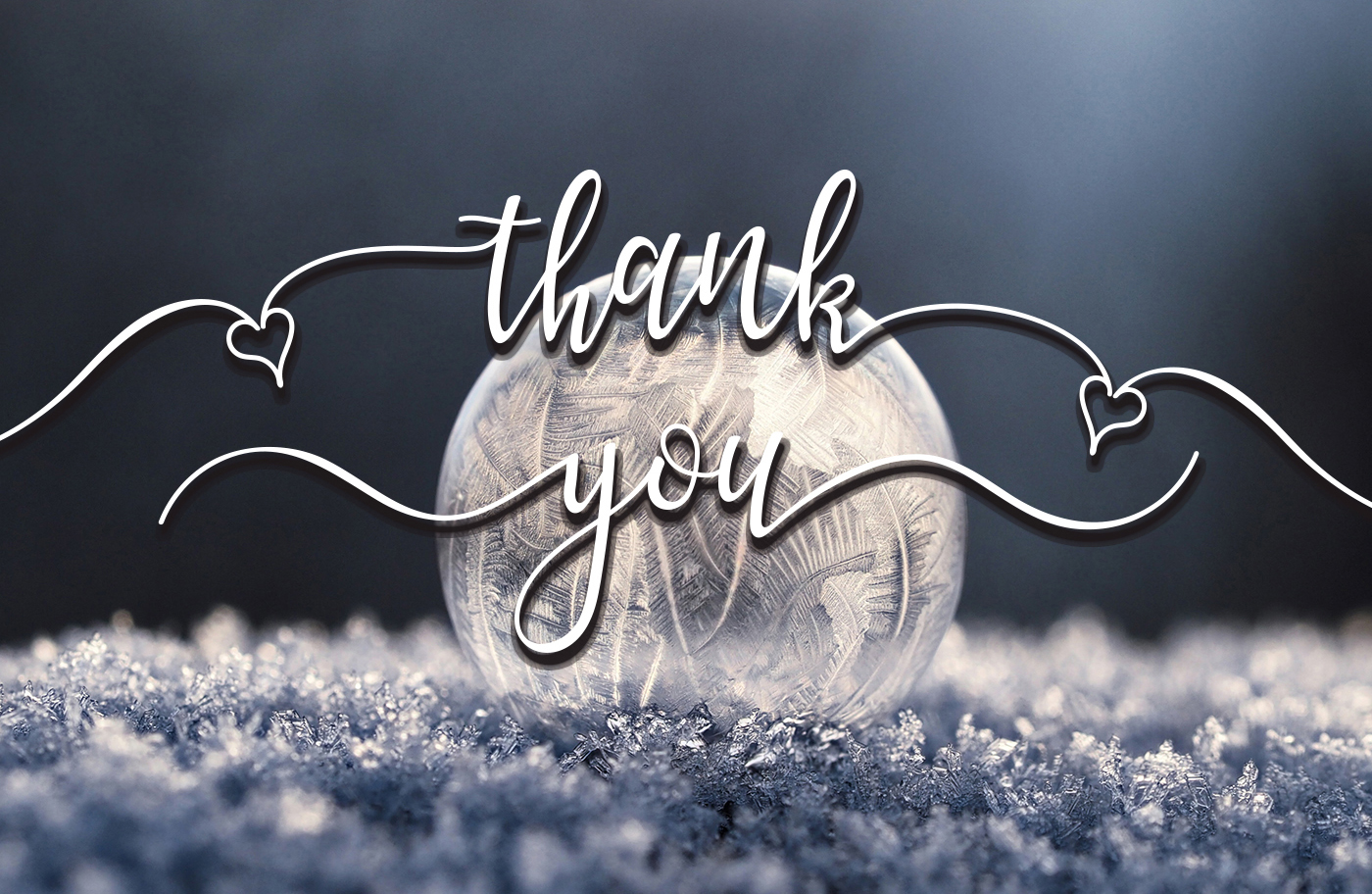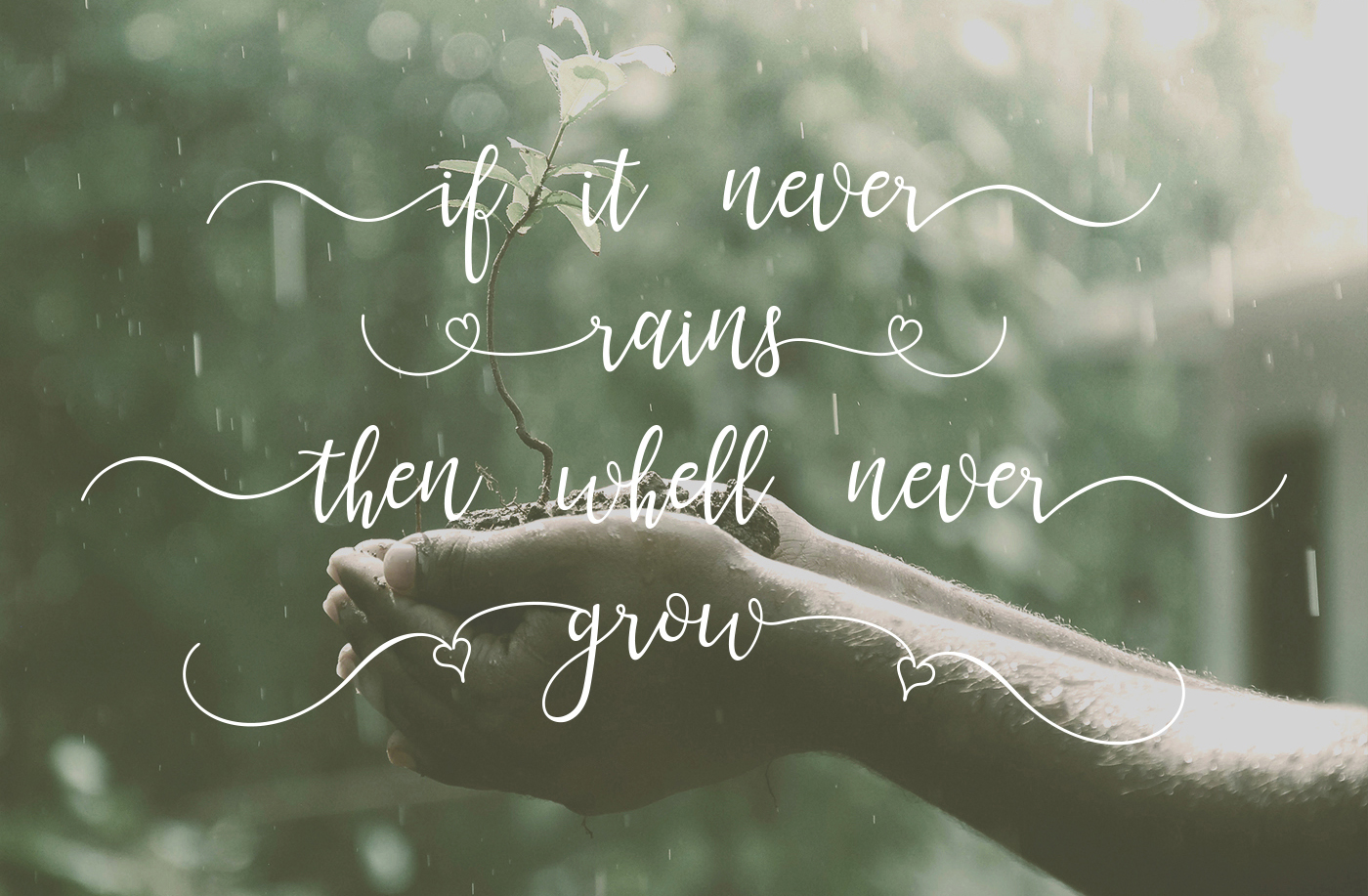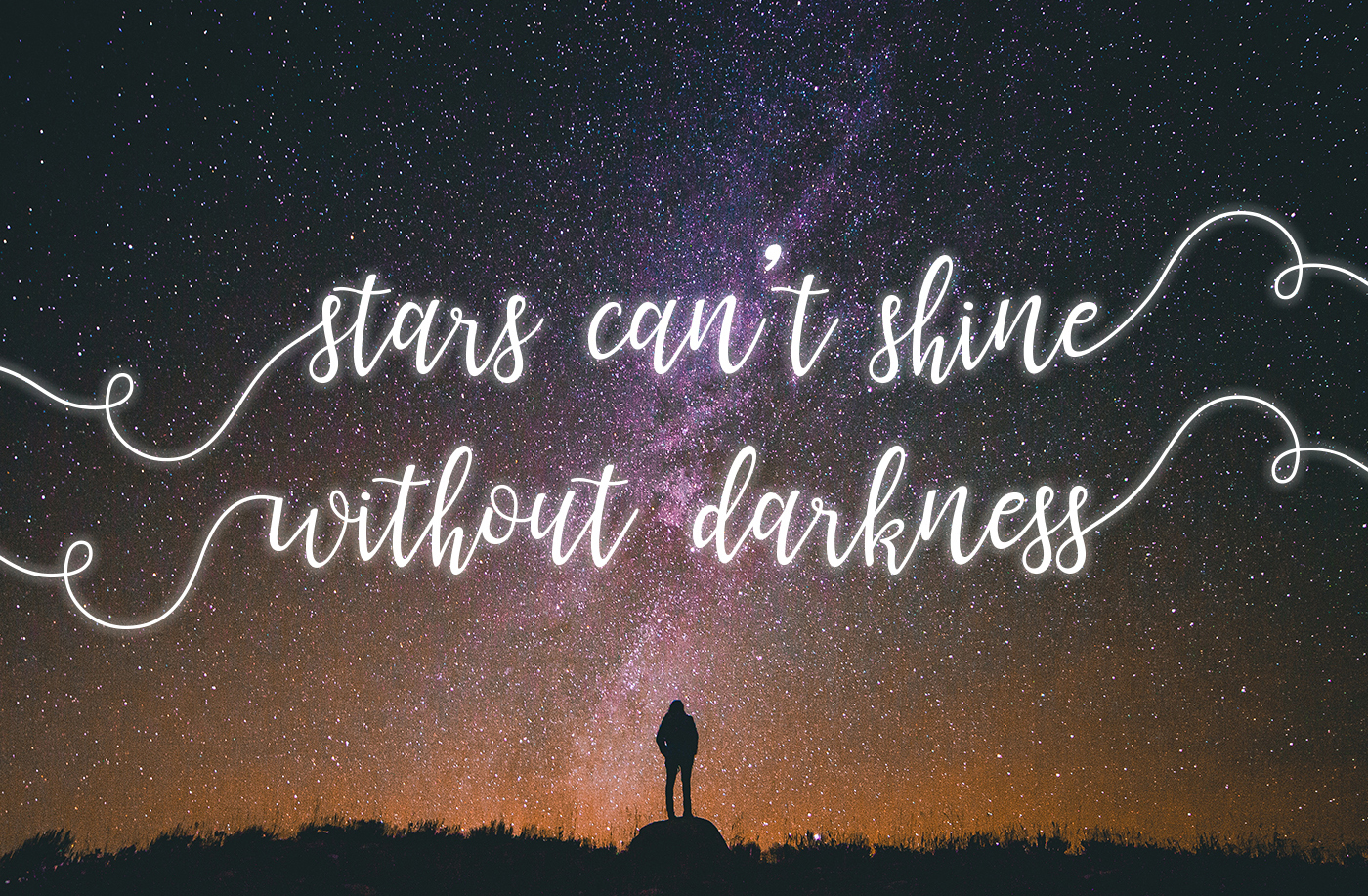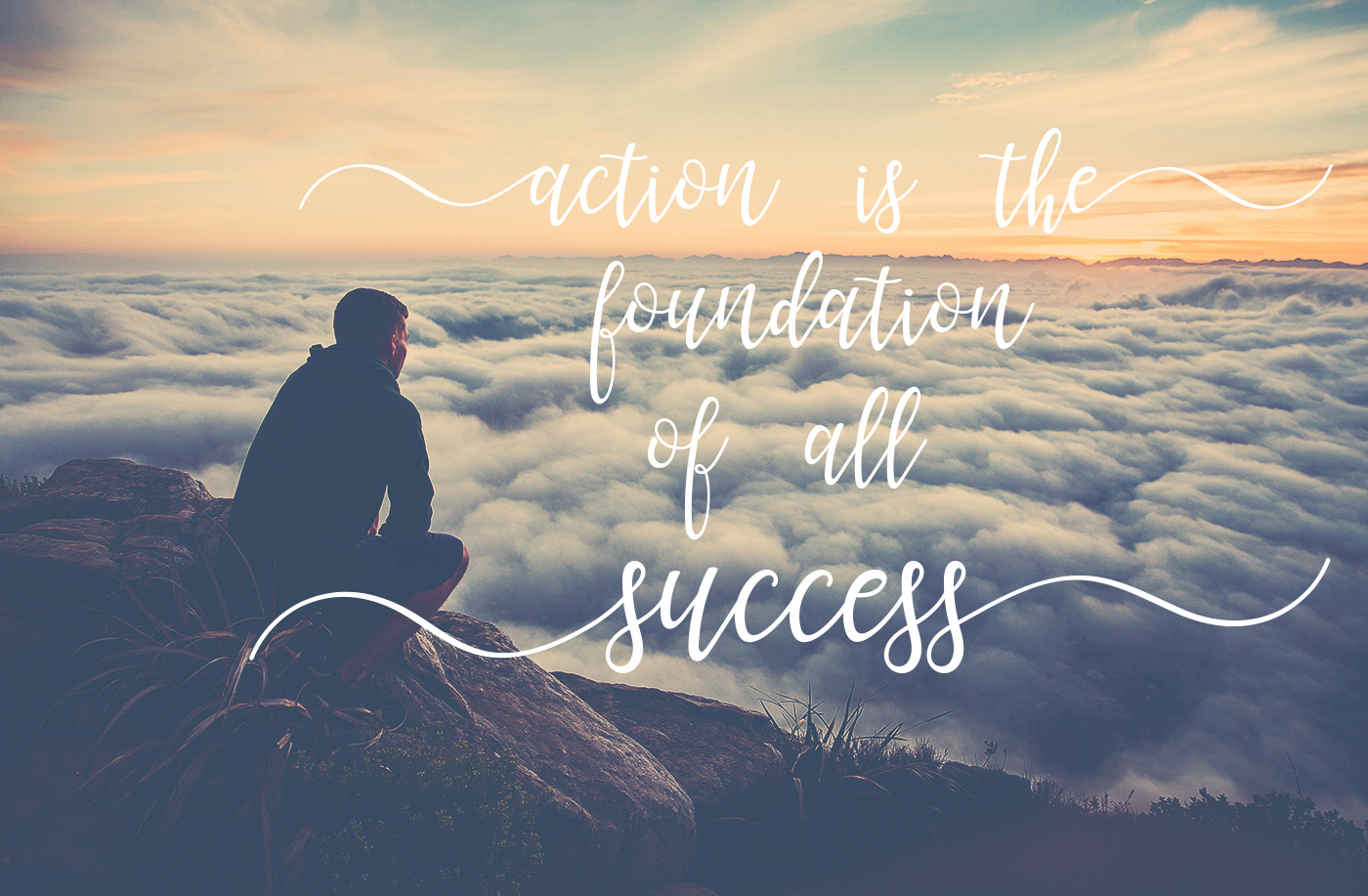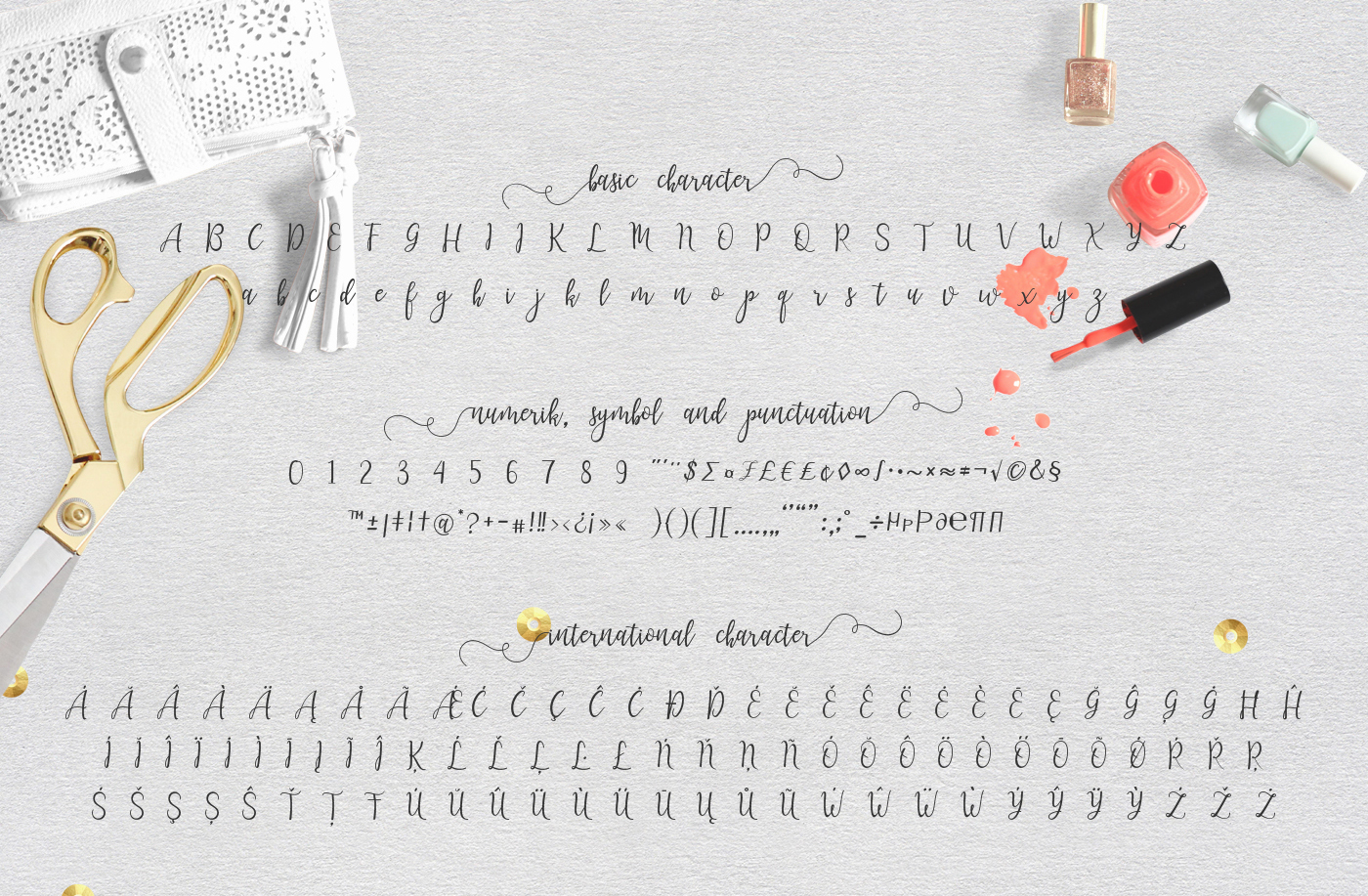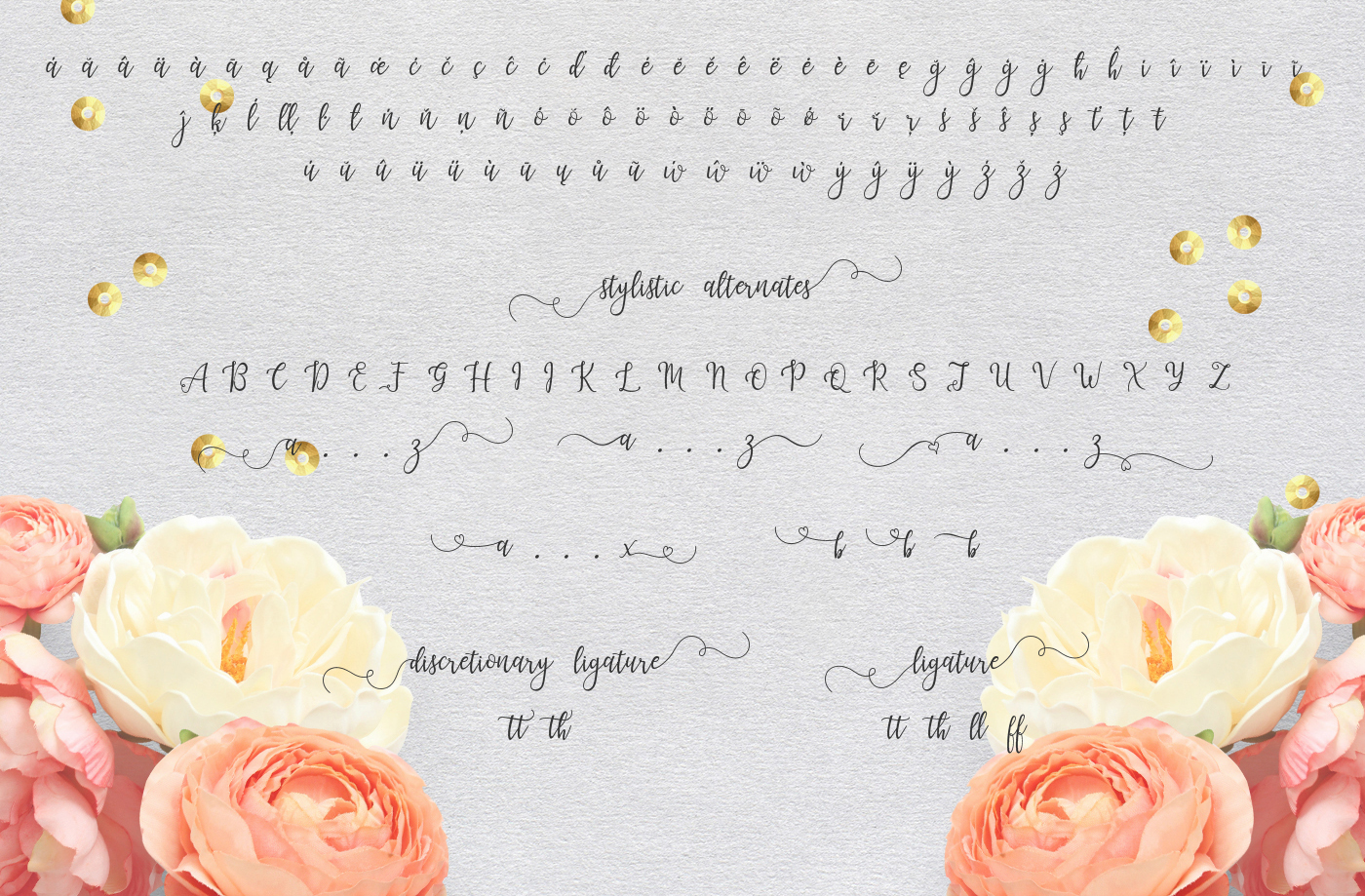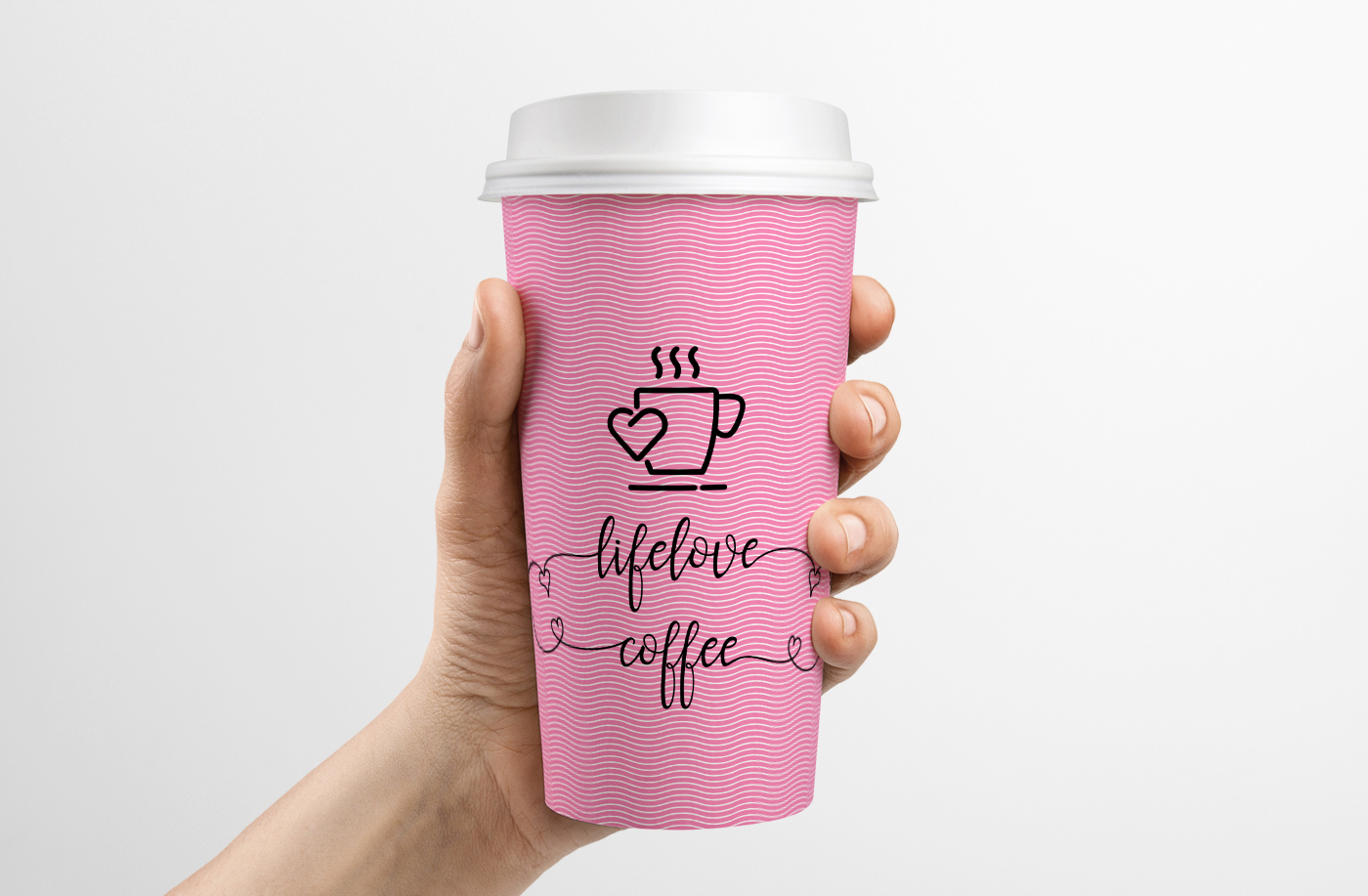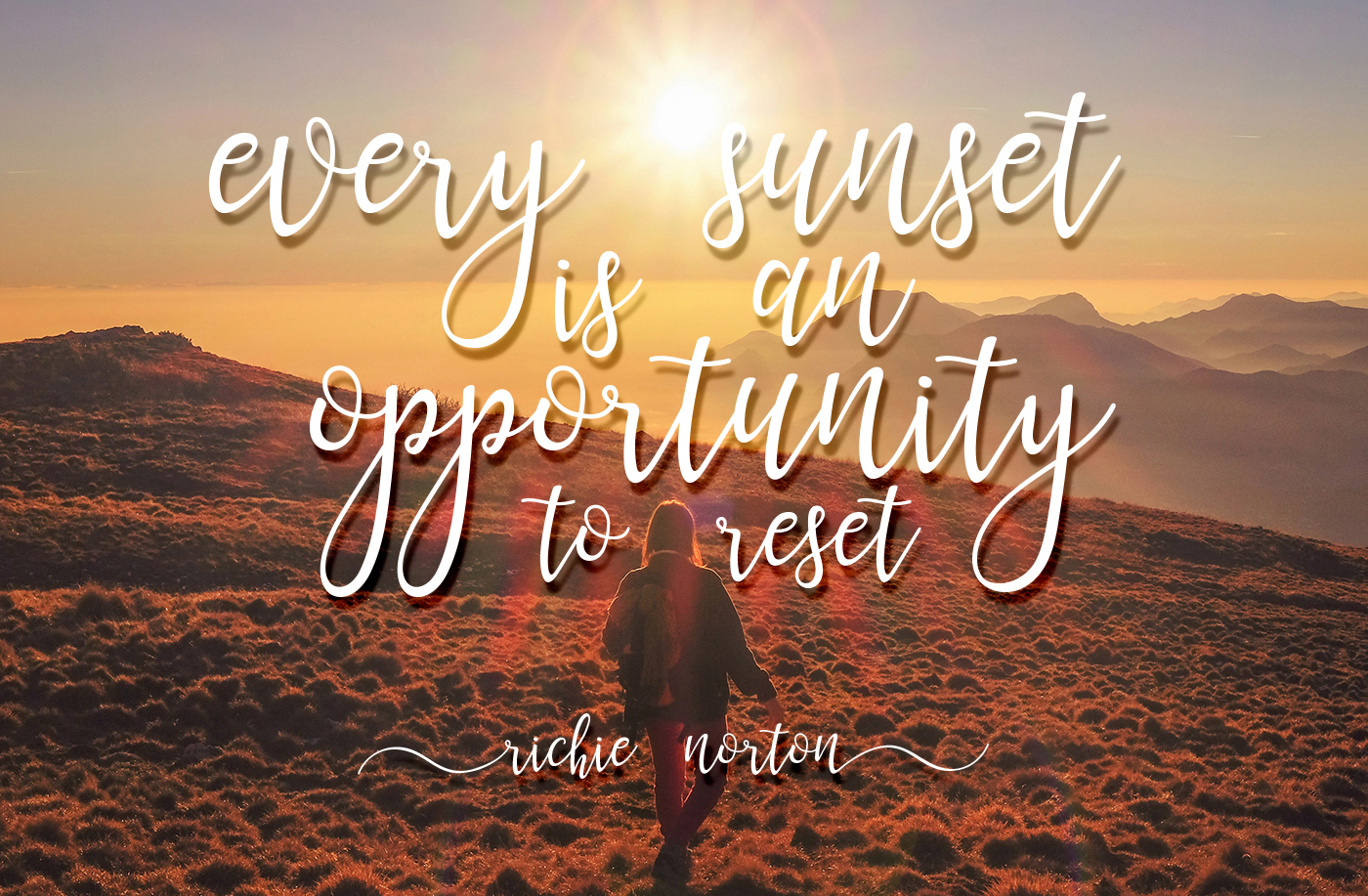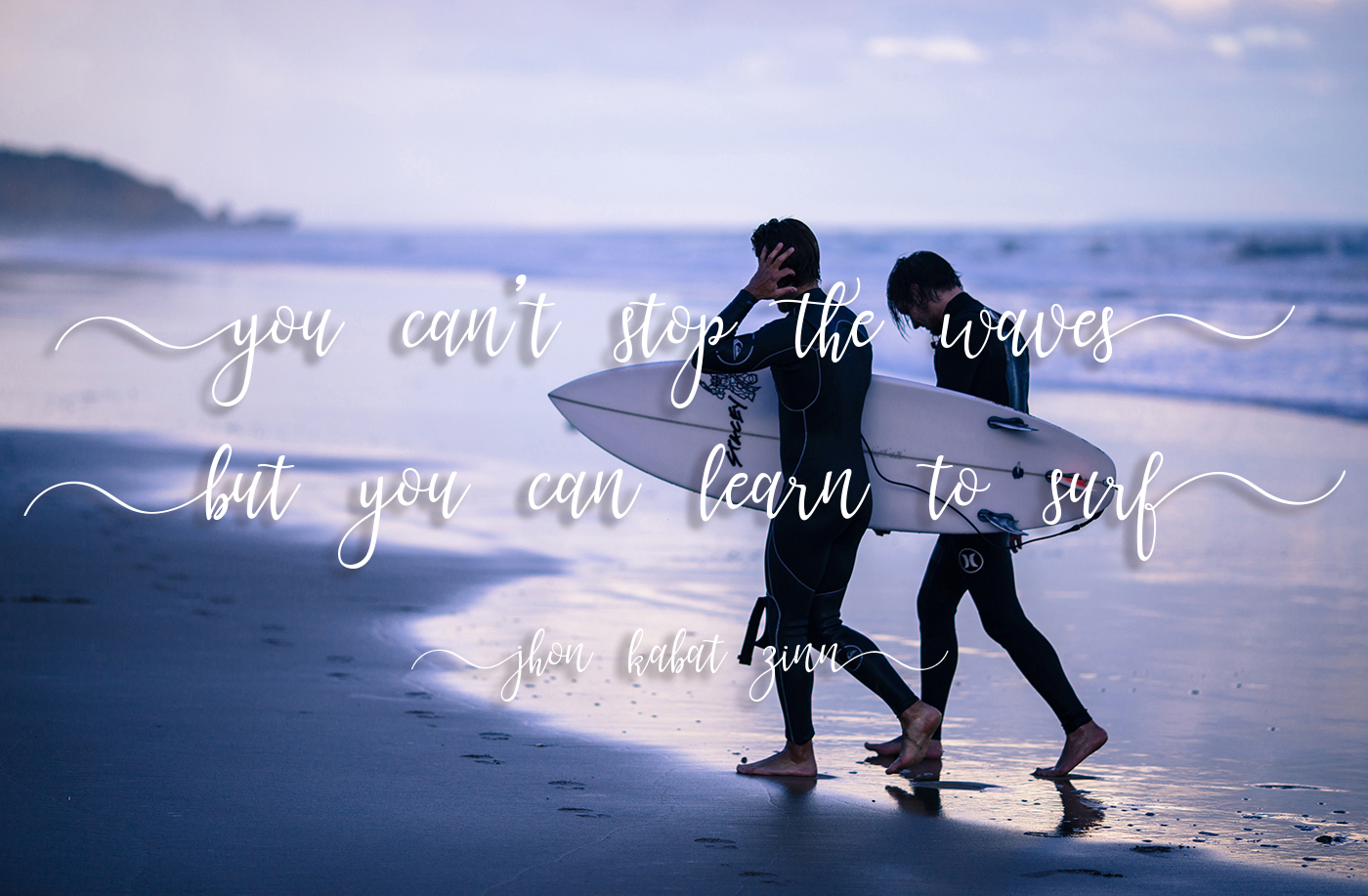
HomeScript FontsLanara Script Pro Font Script Fonts Lanara Script Pro Font FacebookXPinterestWhatsApp Lanara Script Pro Font Poster 2 Lanara Script Pro Font Poster 3 Lanara Script Pro Font Poster 4 Lanara Script Pro Font Poster 5 Lanara Script Pro Font Poster 6 Lanara Script Pro Font Poster 7 Lanara Script Pro Font Poster 8 Lanara Script Pro Font Poster 9 Lanara Script Pro Font Poster 10 About Lanara Script Pro Font Lanara Script is a handwritten font created by Aqr Typeface. DOWNLOAD NOW People also explored Maguero Script Font Snippity Snap Boilermaker Madina Font Clouds Font Kanaya Font Waypointer Romance Font Kalisha Font 369 0 TagsLanara Script Pro Font Previous articleSareeka FontNext articleAndara Script Font LEAVE A REPLY Cancel reply Comment: Please enter your comment! Name:* Please enter your name here Email:* You have entered an incorrect email address! Please enter your email address here Website: Save my name, email, and website in this browser for the next time I comment. Personal Use Free Bollado Personal Use Free Read more about this font Thruster Personal Use Free Read more about this font Allea Sweet Personal Use Free Read more about this font Amrina Personal Use Free Read more about this font BLOG 5 Fonts That Will Dominate Design Trends in 2026 5 Fonts for 2026 That Will Dominate Design Trends Typography plays a critical role in visual communication, and as we look ahead to 2026, it’s... Fonts That Capture the Spirit of New York City Best Fonts for T-Shirt Design – Top 2025 Picks Free vs Paid Fonts: Why Investing in Premium Fonts Is Worth It